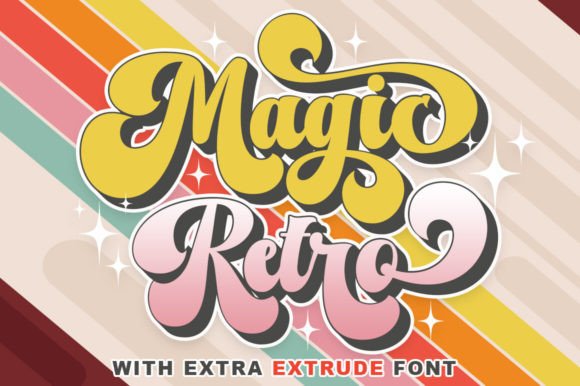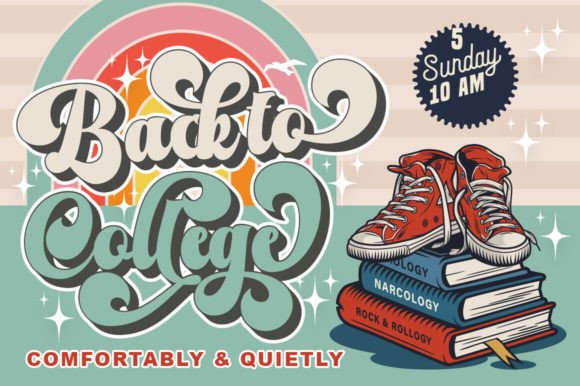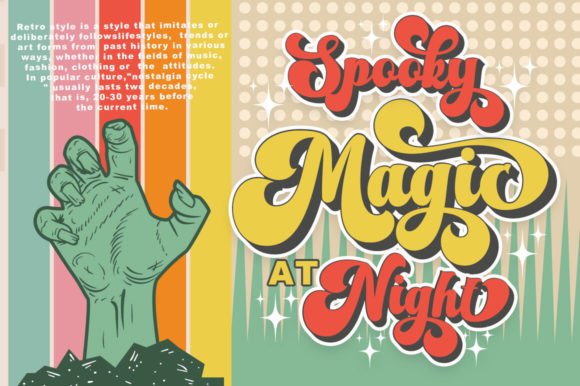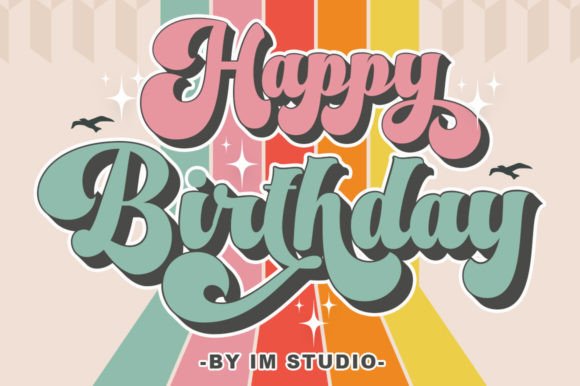
Magic Retro Font
About the Magic Retro Font
Experience the unique personality of Magic Retro Font, a font designed for impact. Magic Retro is playfully nostalgic and delivers an incredible display font. Use this display font to add that special retro touch to any design idea you can think of!
Masterfully designed to become a true favorite, this font has the potential to bring each of your creative ideas to the highest level!
Magic Retro Font shines brightest in headlines, posters, and short-form branding applications where its playful energy can make a strong visual impact. It’s ideal for projects evoking a vintage or retro aesthetic, such as vintage-inspired clothing brands, game design, or music-related materials. Avoid using it for body text or lengthy paragraphs; its decorative nature compromises readability at smaller sizes.
Its bold, nostalgic personality pairs well with clean sans-serif fonts like Futura or Helvetica for a balanced contrast. For a more playful feel, consider pairing it with a rounded sans-serif such as Bebas Neue. A classic serif like Garamond could add a touch of sophistication, grounding the retro energy.
The overall personality is best described as bold and playful, yet nostalgic. It projects a sense of fun and retro charm without being overly childish or kitschy.
Magic Retro Font Usage Examples
Magic Retro Font Example